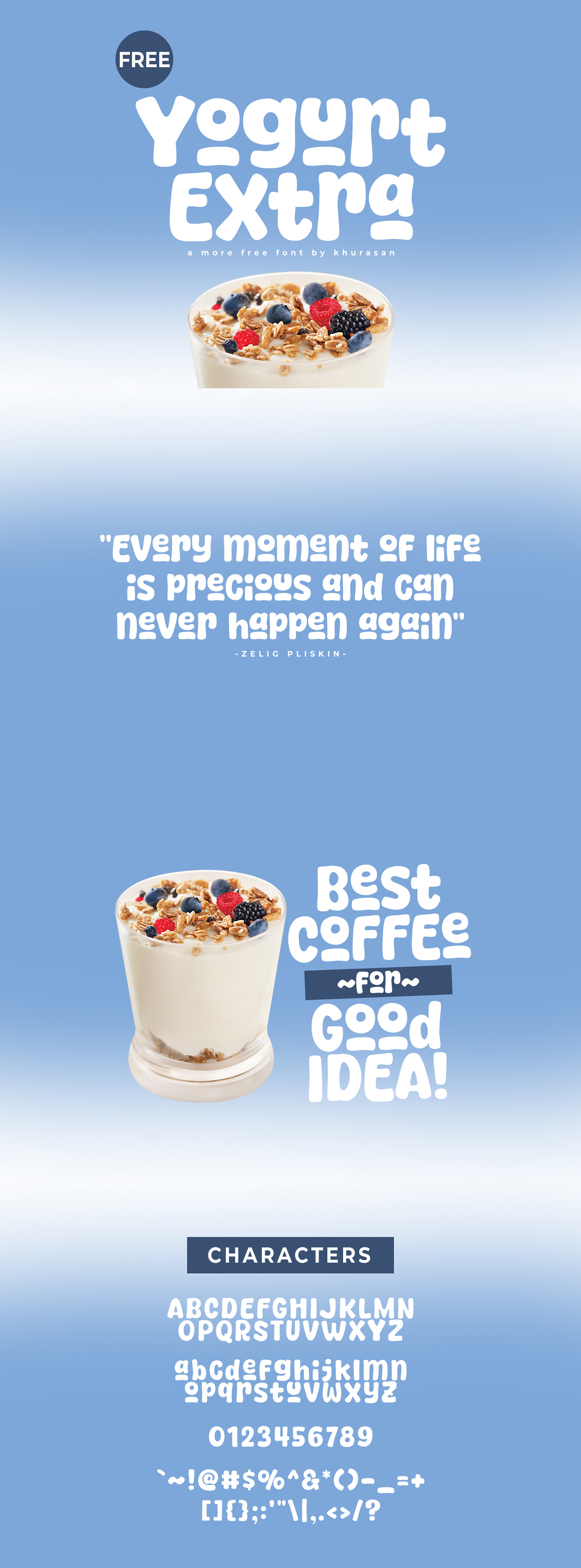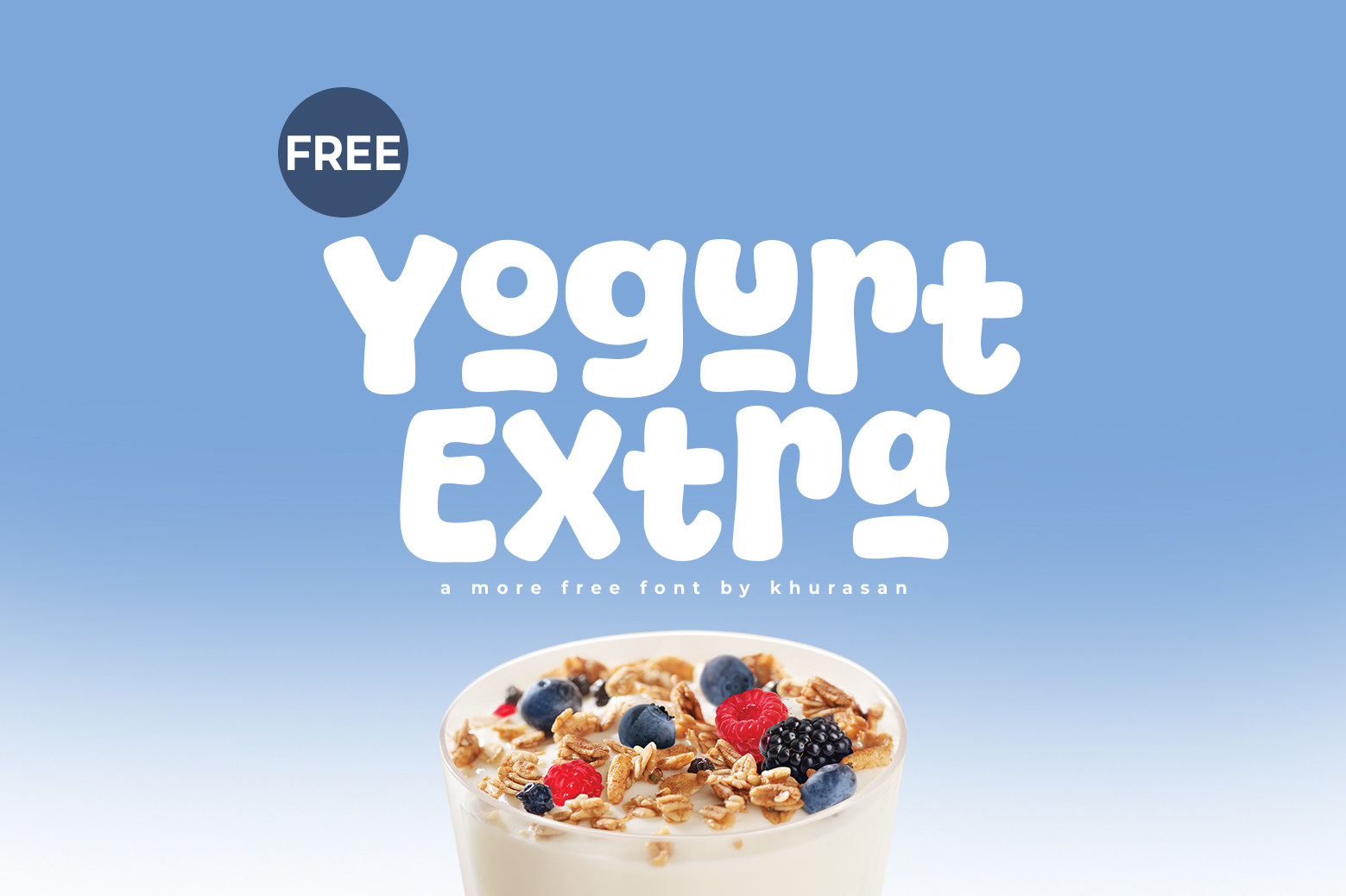
Yogurt Extra Font
The Yogurt Extra Font is perfect for healthy food branding, organic product packaging, wellness lifestyle campaigns, fresh dairy branding, natural nutrition labels, health-conscious restaurant menus, fitness supplement designs, wholesome family products, clean eating promotions, and vibrant wellness communications.
What makes the Yogurt Extra Font so exciting is its delightful combination of fresh vitality with healthy appeal that creates an irresistibly wholesome visual experience perfect for brands seeking to communicate natural goodness and vibrant health benefits. This refreshing typeface features clean letterforms, energetic character spacing, and fresh design elements that perfectly capture the essence of nutritious living and healthy lifestyle choices. The font's wholesome personality and vibrant appeal make it an exceptional choice for health brands seeking to communicate freshness, nutrition, and genuine wellness with appetizing visual charm that promotes healthy living.
The Yogurt Extra Font family includes fresh variations and healthy alternates, featuring multiple weight options, nutritious character styles, and vibrant design elements. Each variation maintains the signature fresh appeal while offering different levels of visual energy and healthy charm, giving designers extensive creative possibilities for crafting wholesome communications and nutritious brand personalities that inspire healthy lifestyle choices.
This exceptional Yogurt Extra Font Free Download represents the perfect healthy typography solution for wellness brands who want to infuse their projects with authentic freshness and nutritious appeal that connects with health-conscious consumers. Whether you're developing organic food brands, creating wellness marketing materials, or designing healthy lifestyle communications, this versatile fresh font delivers nourishing results that resonate with audiences seeking genuine health benefits and natural goodness.
The vibrant healthy characteristics of Yogurt Extra Font showcase masterful wellness typography design, with each letter carefully crafted to evoke feelings of freshness and nutritional satisfaction while maintaining excellent readability and visual appeal. The font's comprehensive character set includes uppercase and lowercase letters, numerals, healthy punctuation, and wellness symbols, ensuring complete functionality for diverse health projects and international wellness applications.
Perfectly suited for both digital and print wellness applications, this refreshing font maintains its fresh character and healthy appeal across various sizes and formats. From large-scale health store signage to detailed nutrition packaging designs, Yogurt Extra Font adapts beautifully to any wellness design challenge while preserving its distinctive wholesome personality and vibrant healthy charm.